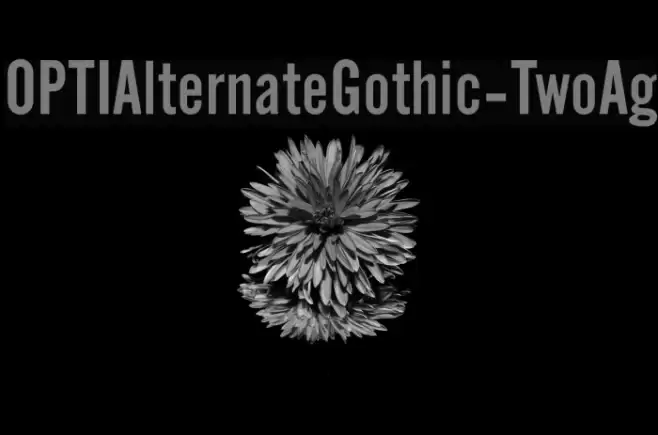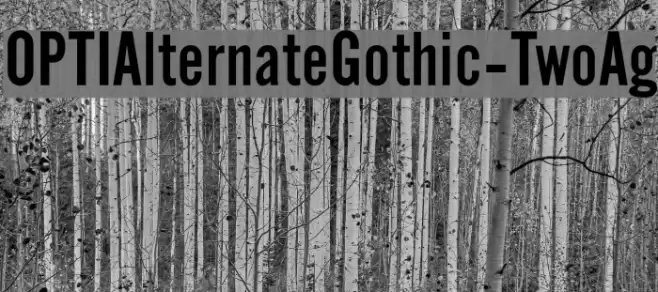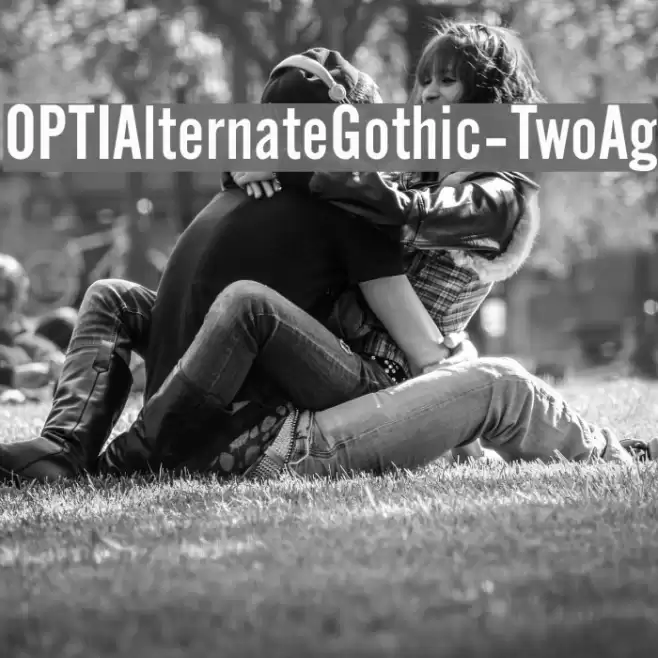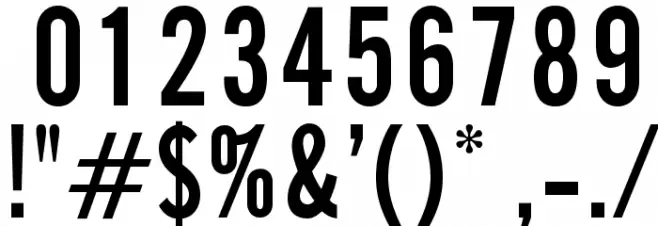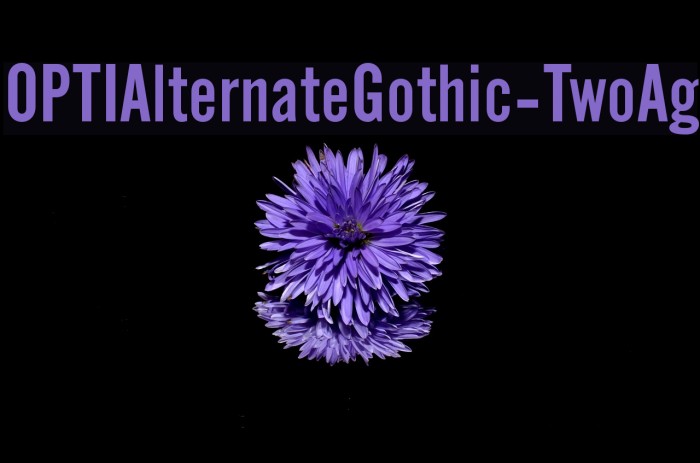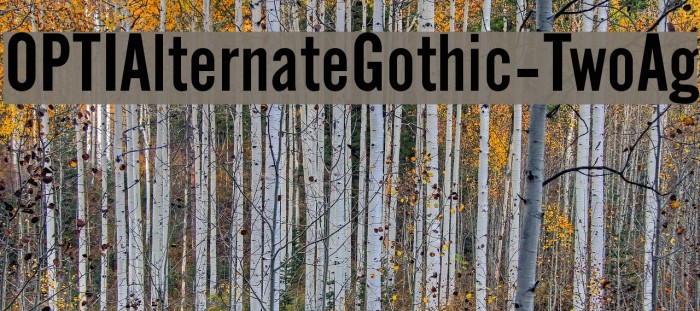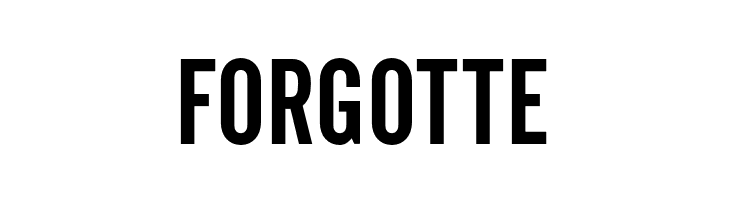
OPTIAlternateGothic-TwoAg Font
OPTIAlternateGothic-TwoAg Description
This font features a bold and impactful sans-serif style with clean, straight lines and uniform stroke widths. The uppercase and lowercase letters are well-proportioned, offering a modern and professional appearance. The numerals are clear and easy to read, making them suitable for various applications. Special characters are distinct and maintain the font's overall aesthetic. The design is versatile, suitable for both digital and print media, and can be used to convey a sense of authority and clarity.
A bold, modern sans-serif font with clean lines and uniform strokes from Uncategorized fonts.
- Proposed Projects: Ideal for branding, advertising, headlines, and signage where clarity and impact are essential.
- Use Case: Headlines, Logos, Signage